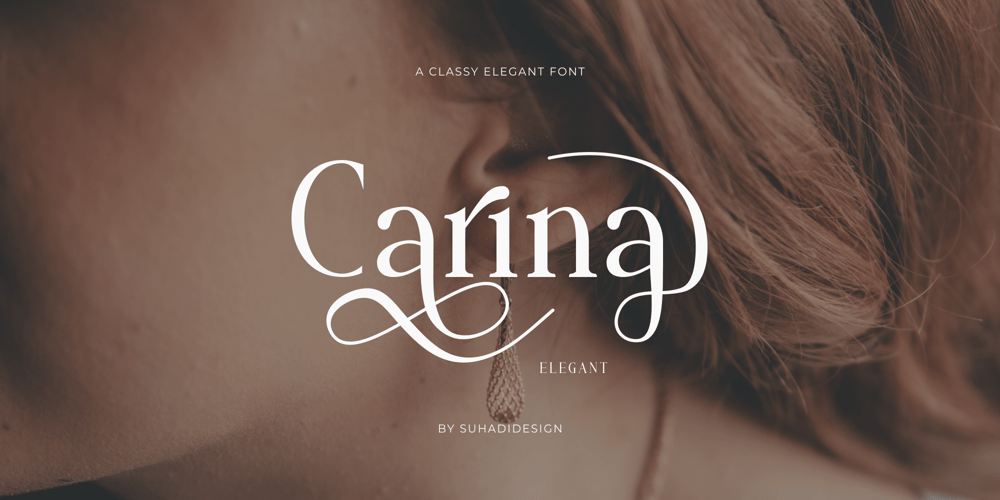
Carina Elegant Font Family was designed by ahmad suhadi and published by suhadidesign. Carina Elegant contains 1 styles and family package options. Carina elegant classy fontHi ladies and gentlemen! Due to the popularity of the market for modern fonts, I created a serif font that suits your needs. The Carina elegant font is a modern classy elegant serif font. is here to become a market favorite. We made this font look elegant, classy, modern, new style, easy to read, stylish, attractive and easy to use. Carina elegant Font is the right choice for magazine designs, newspapers, fashion, classy designs, beauty, feminine, brand names, branding and other projects. The Carina elegant font is here to enhance the quality of your designs.Follow us for the next classy font creation :)Feature:• Uppercase • Lowercase • Multilingual Support • Numbers and punctuation • Alternatives • Stylistic sets • LigaturesWhat’s included:Carina elegant (OpenType)